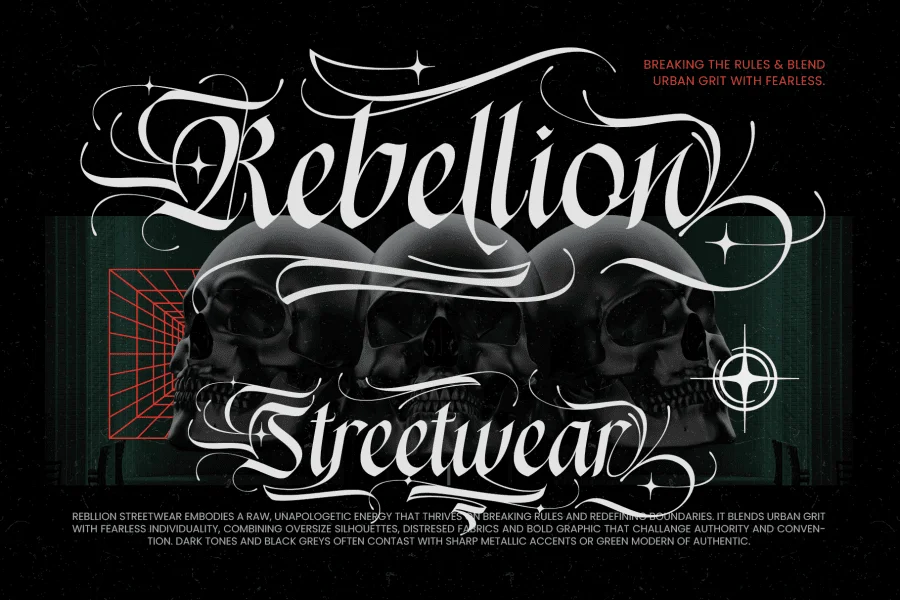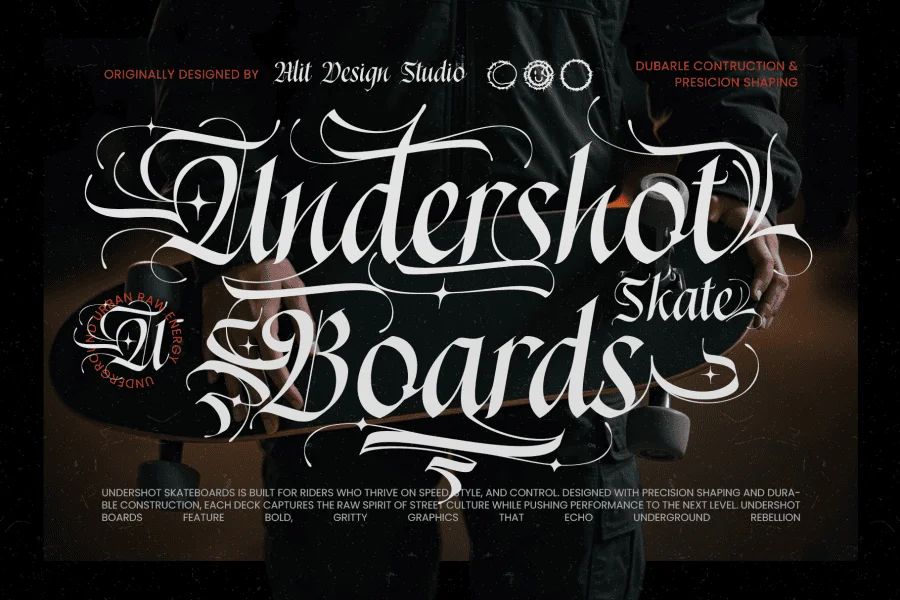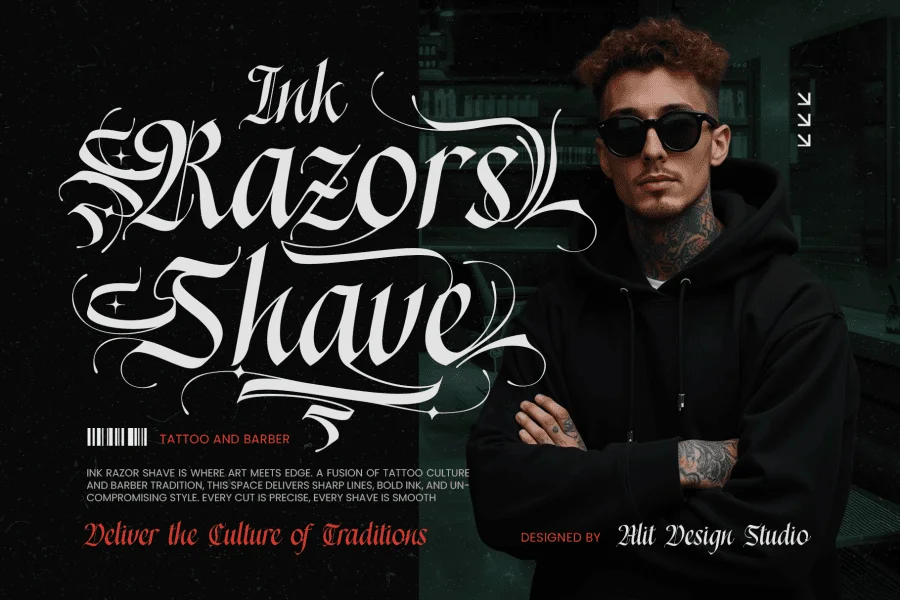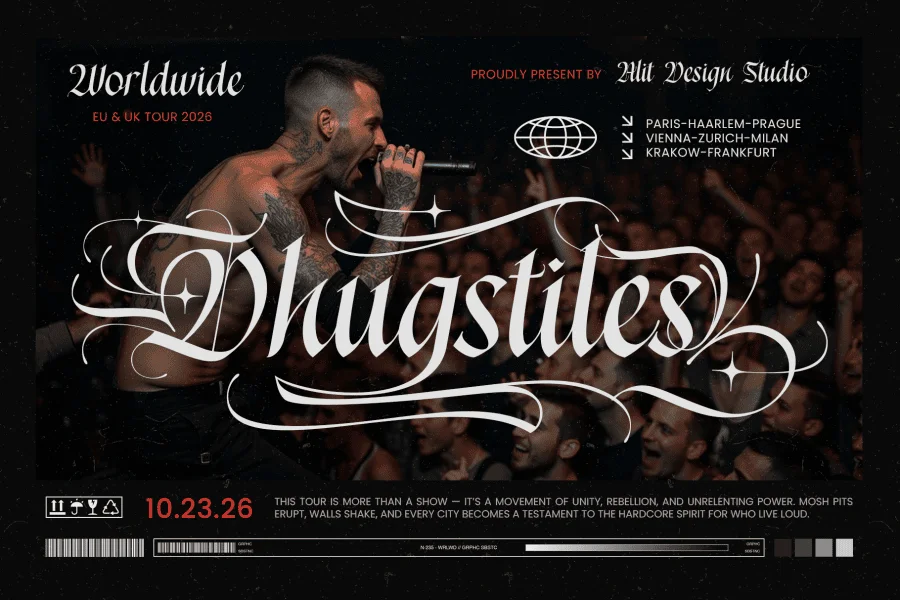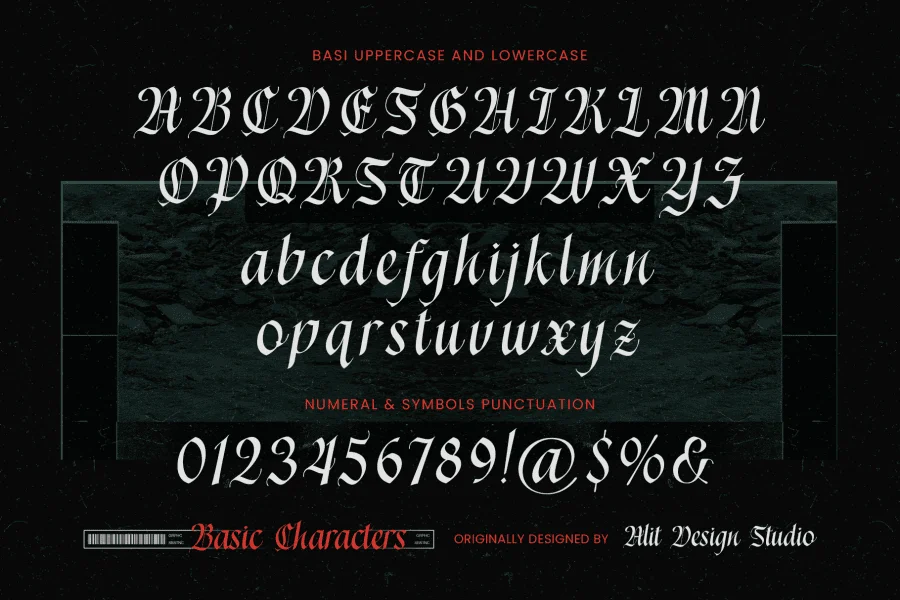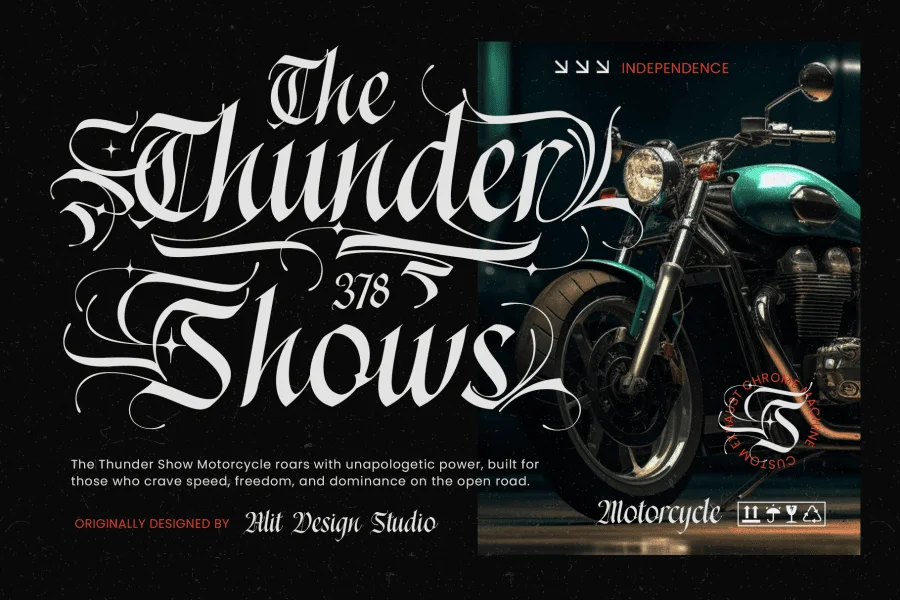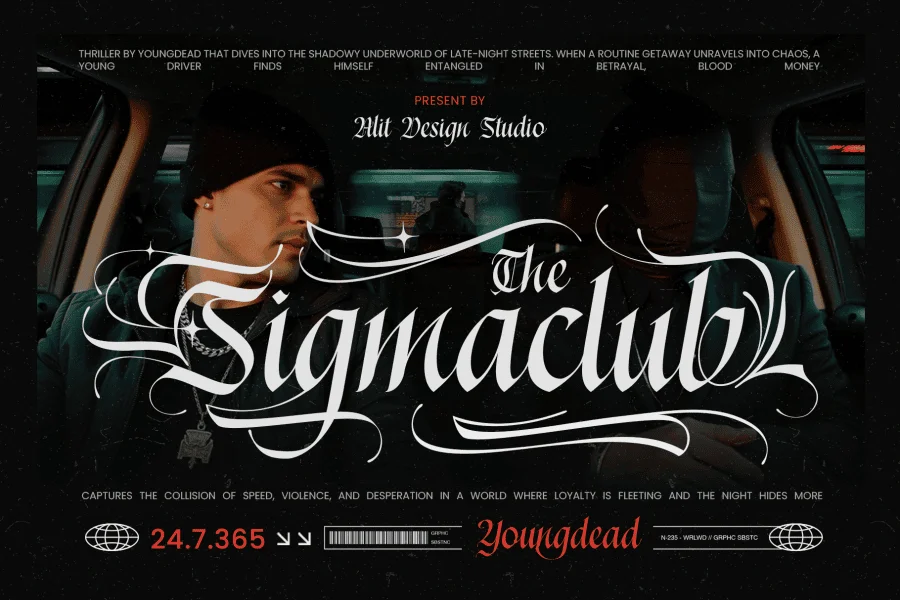
Daigersun Typeface: Where Rebellion Meets Elegance
Unleash a torrent of raw energy and refined elegance with Daigersun, a masterfully crafted typeface that tears up the rulebook. Born from the shadows of urban culture, Daigersun masterfully blends the unforgiving power of blackletter with the fluid, calligraphic grace of a modern script. This is not just a font; it's a statement.